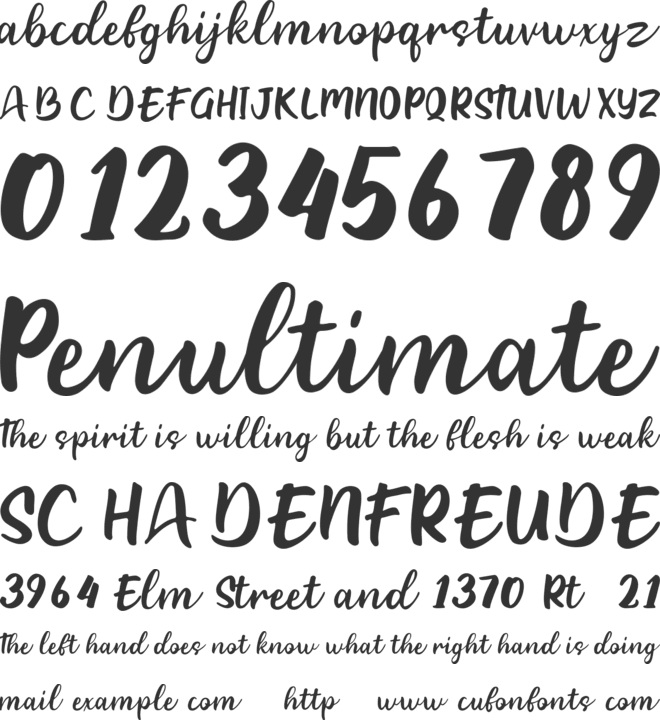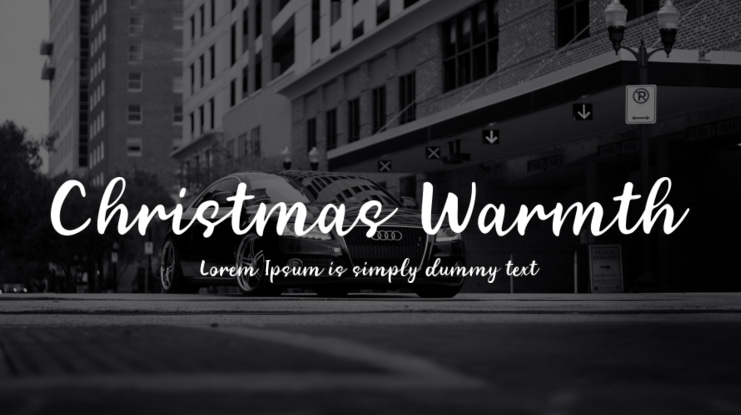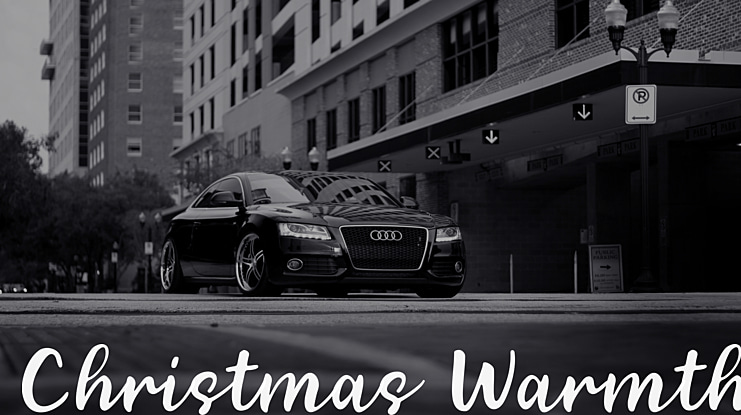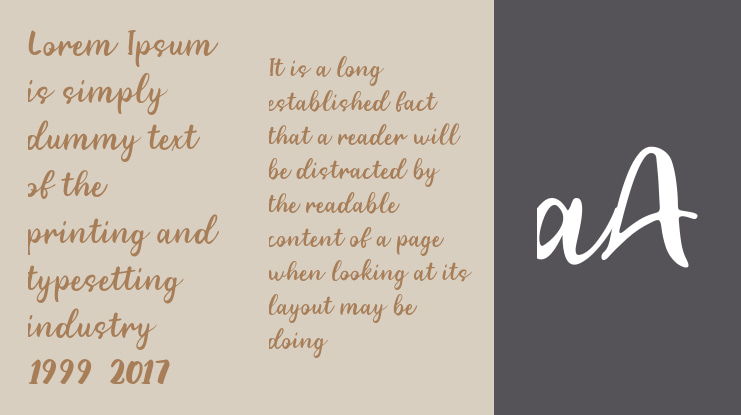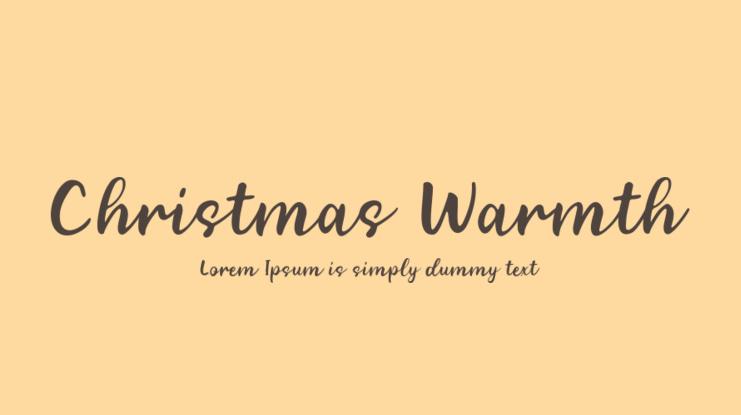
HandletterYean
This font is a rich and elegant handwritten font. It is ideal for holiday-themed greeting cards and for any crafting project that requires a romantic touch.